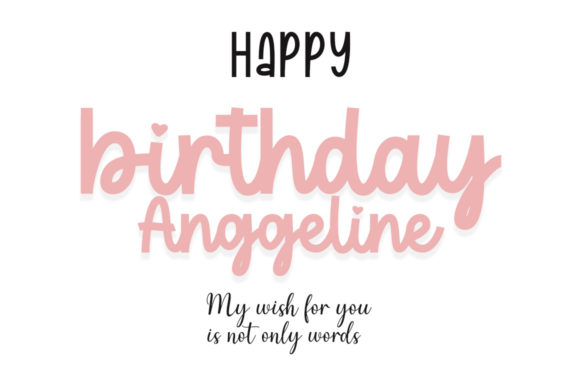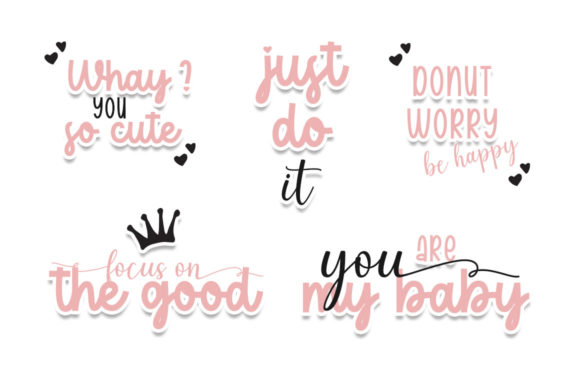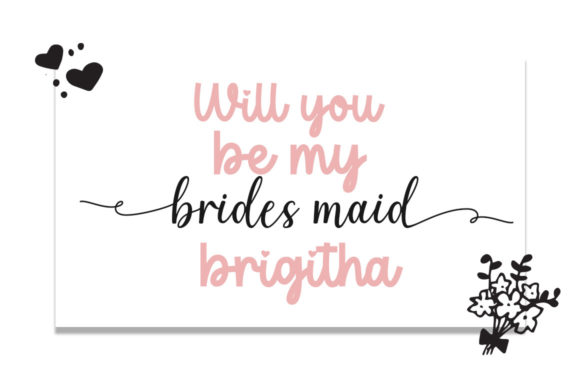
Birthday Lovely Lilia Font
Birthday Lovely Lilia is a cute and playful duo font (display and script). Incredibly versatile, this font fits a wide pool of designs, elevating them to the highest levels. Birthday Lovely Lilia is PUA encoded which means you can access all of the glyphs and swashes with ease!